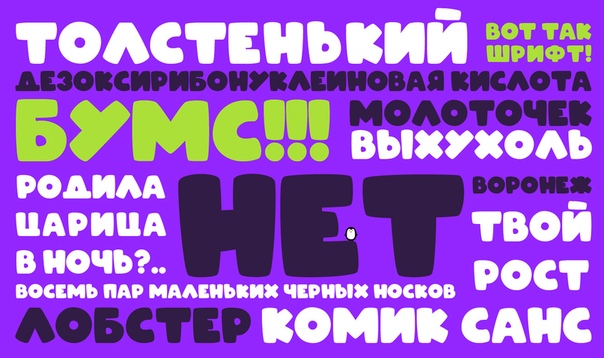
Free and Premium Quality Fonts - Best Premium FontsYou can create beautiful websites with great typography using the atfont face kit of arco perpetuo font. I want to thank my friend denis ignatov for adding new characters and solving the problems he was having in osx. Arco is a funny typography with rounded edges with more than 80 characters its alphabets in uppercase.
arco typography regular font
Arco is a funny typography with rounded edges with more than 80 characters its alphabets in uppercase. Martin zarth visuelle digitale kommunikation designer. Arco is a funny typography with rounded edges with more than 80 characters its alphabets in uppercase. This typeface is free for personal and commercial use.
Arco is a funny typography with rounded edges with more than 80 characters its alphabets in uppercase.